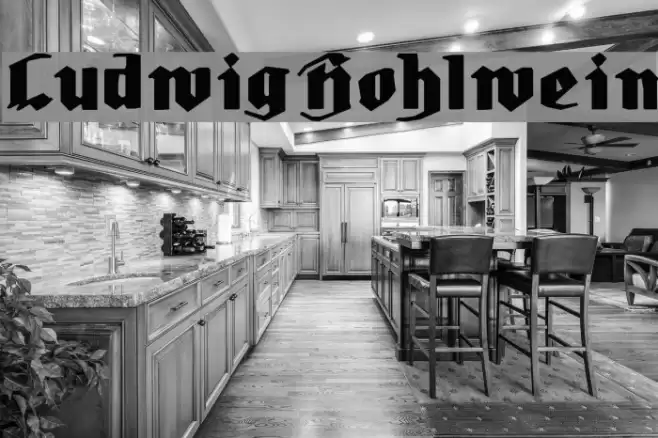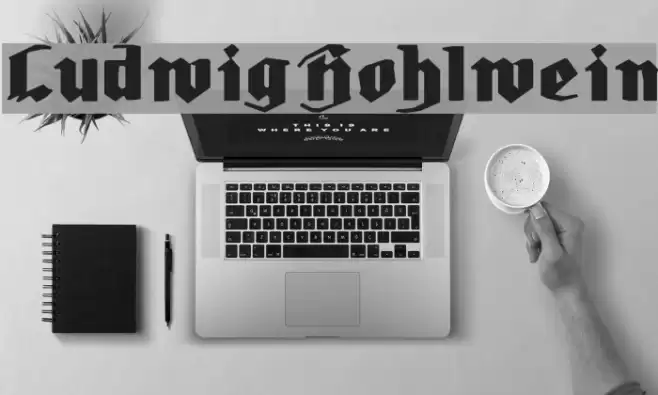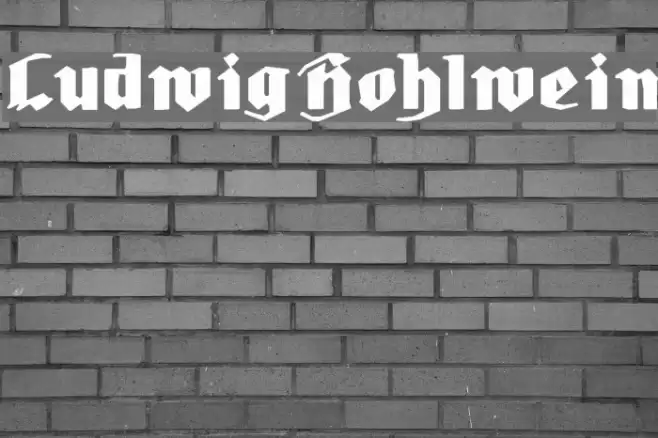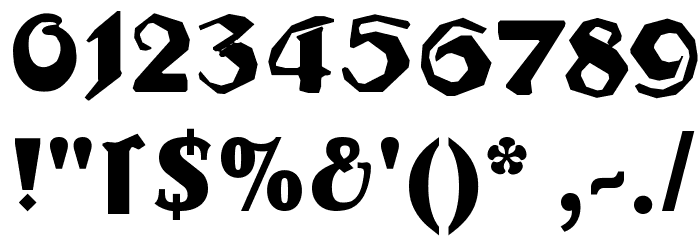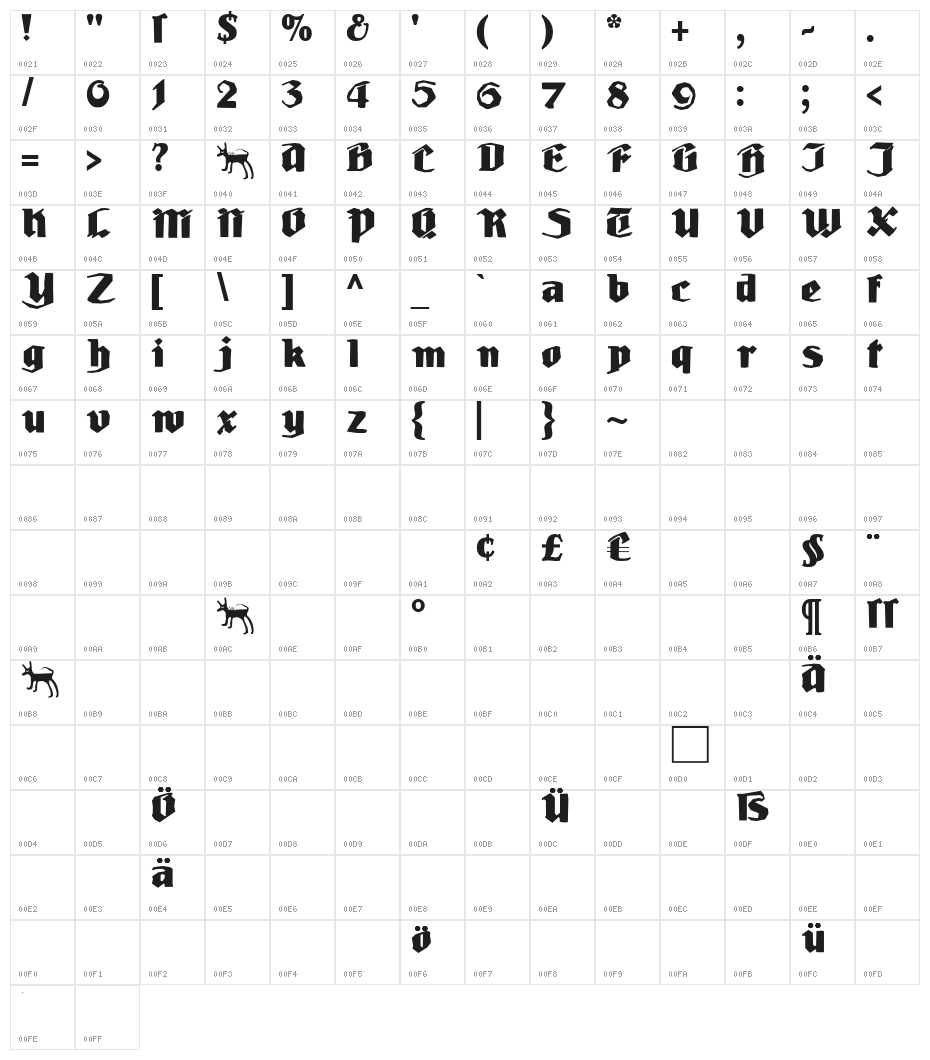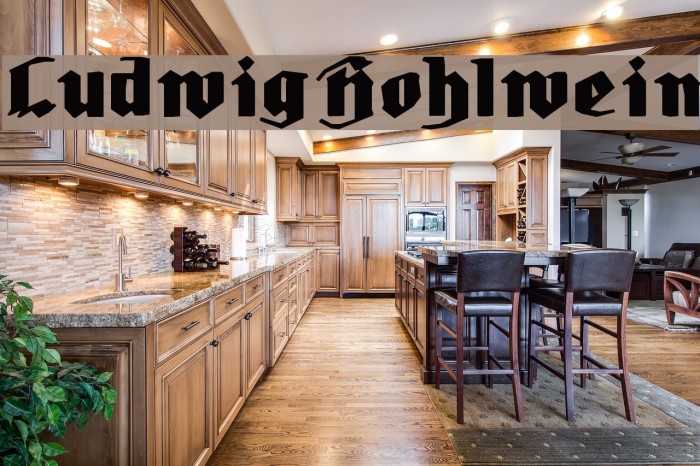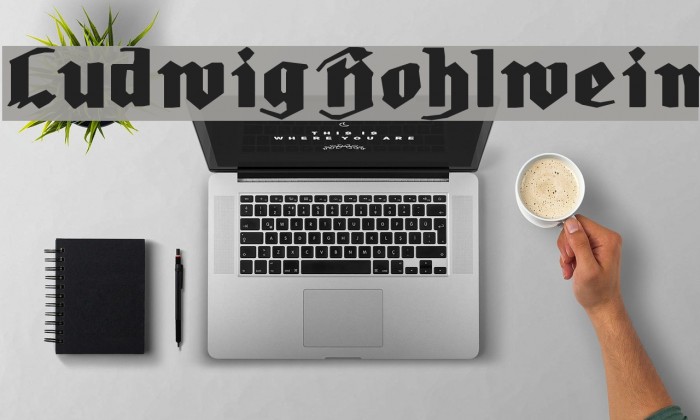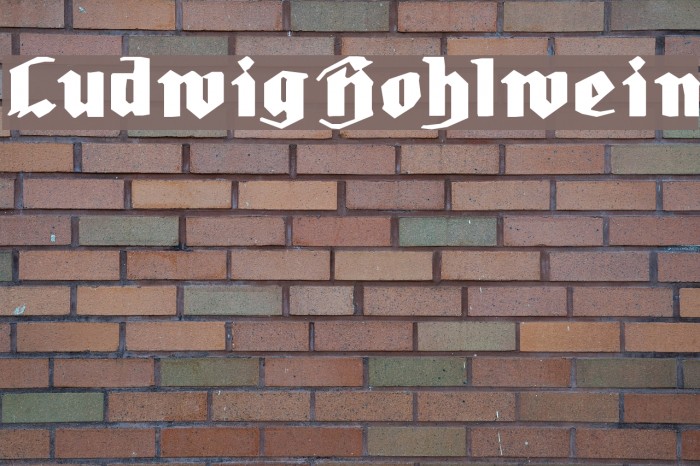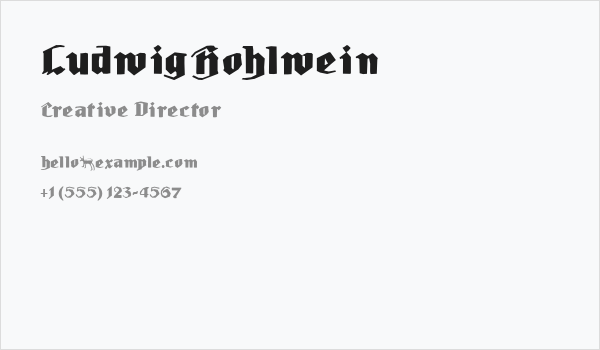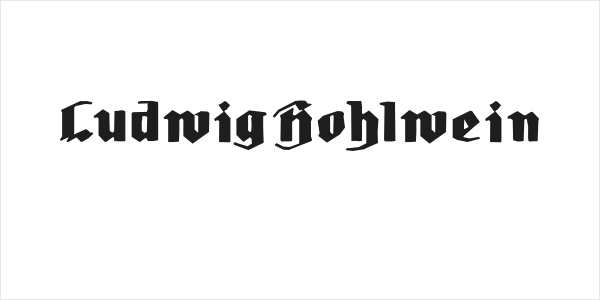
LudwigHohlwein Font
LudwigHohlwein Description
This font exhibits a bold and striking blackletter style, characterized by its sharp, angular lines and dramatic presence. The uppercase letters are particularly ornate, with intricate details that give them a historical and gothic feel. The lowercase letters maintain the same boldness, ensuring consistency across the typeface. Numbers and special characters are designed with the same attention to detail, making them stand out with their unique shapes. This font is reminiscent of medieval script, often used in traditional and formal contexts. Its strong visual impact makes it suitable for designs that require a touch of elegance and authority.
A bold blackletter font with sharp, angular lines and a gothic style from Uncategorized fonts.
- Proposed Projects: Ideal for historical themed designs, book covers, posters, and branding that requires a classic and authoritative look.
- Overall Style: Vintage